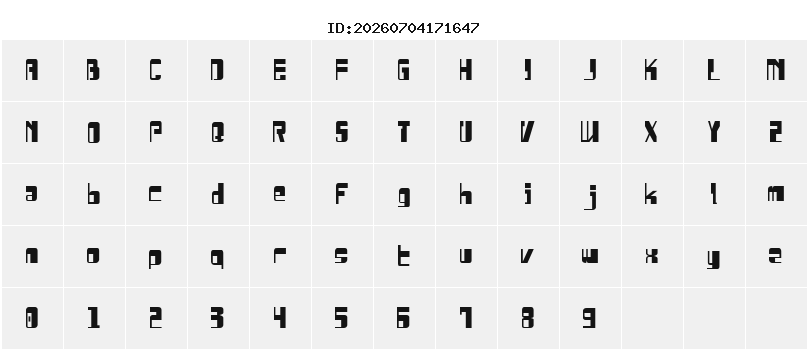
• Font Name: Drosselmeyer Condensed
• Font Style: Condensed
• Designer: Dan Zadorozny
About Drosselmeyer Condensed.ttf
Drosselmeyer Condensed.ttf is a modern, elegant sans-serif font designed for ultimate readability and visual harmony. Perfect for branding, headlines, web design, and print materials.